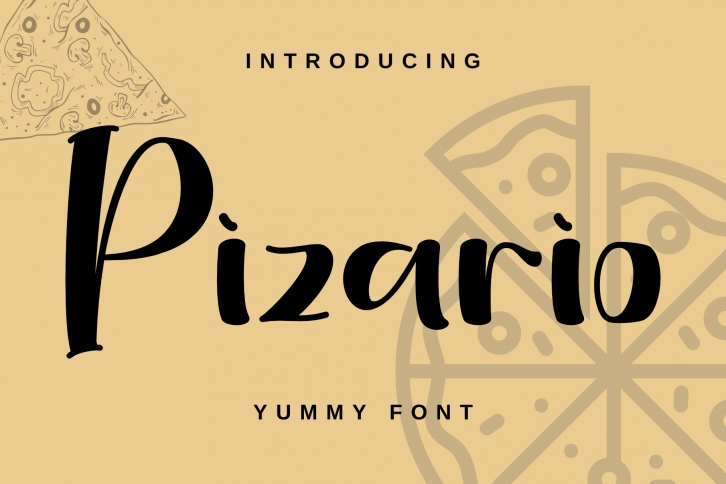
Pizario is a yummy, playful, and fun display font. It will look gorgeous on a variety of design ideas and it will add a joyful and sweet touch to each of your projects! This font is PUA encoded which means you can access all of the glyphs with ease!